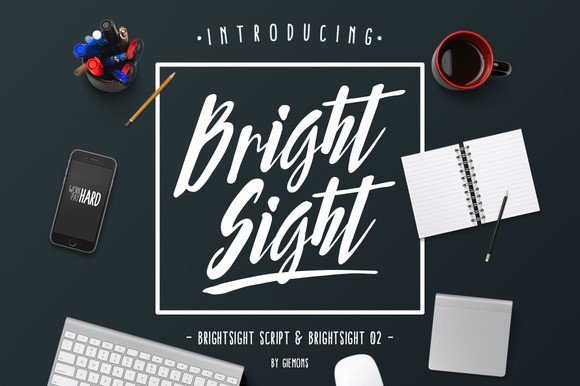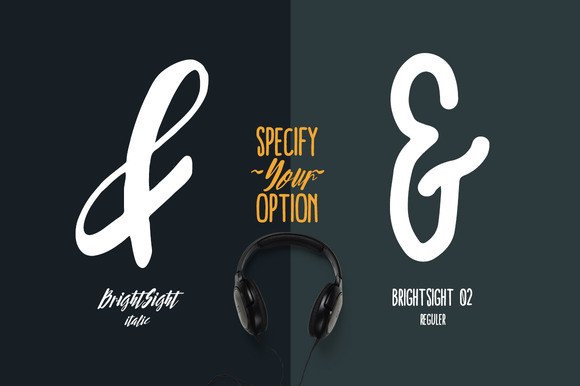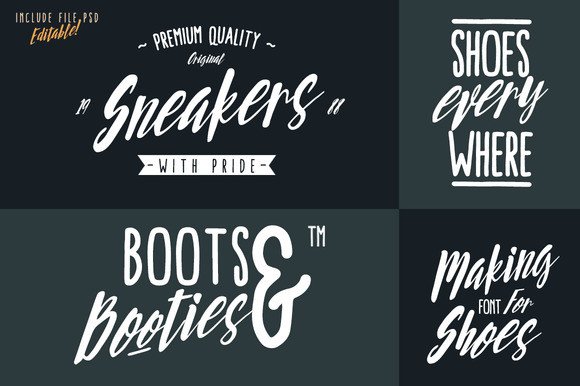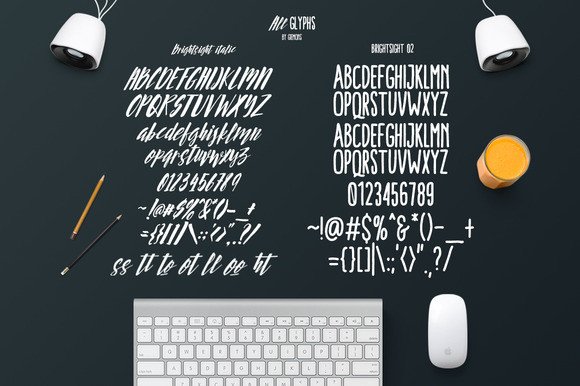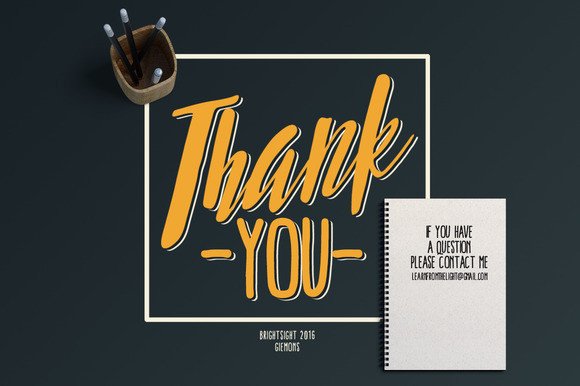
Bright Sight  Font
Bright Sight is a stunning and dynamic brush script font, suitable for high impact designs and creative projects.  Bright Sight is an ideal candidate for logotype and displays.